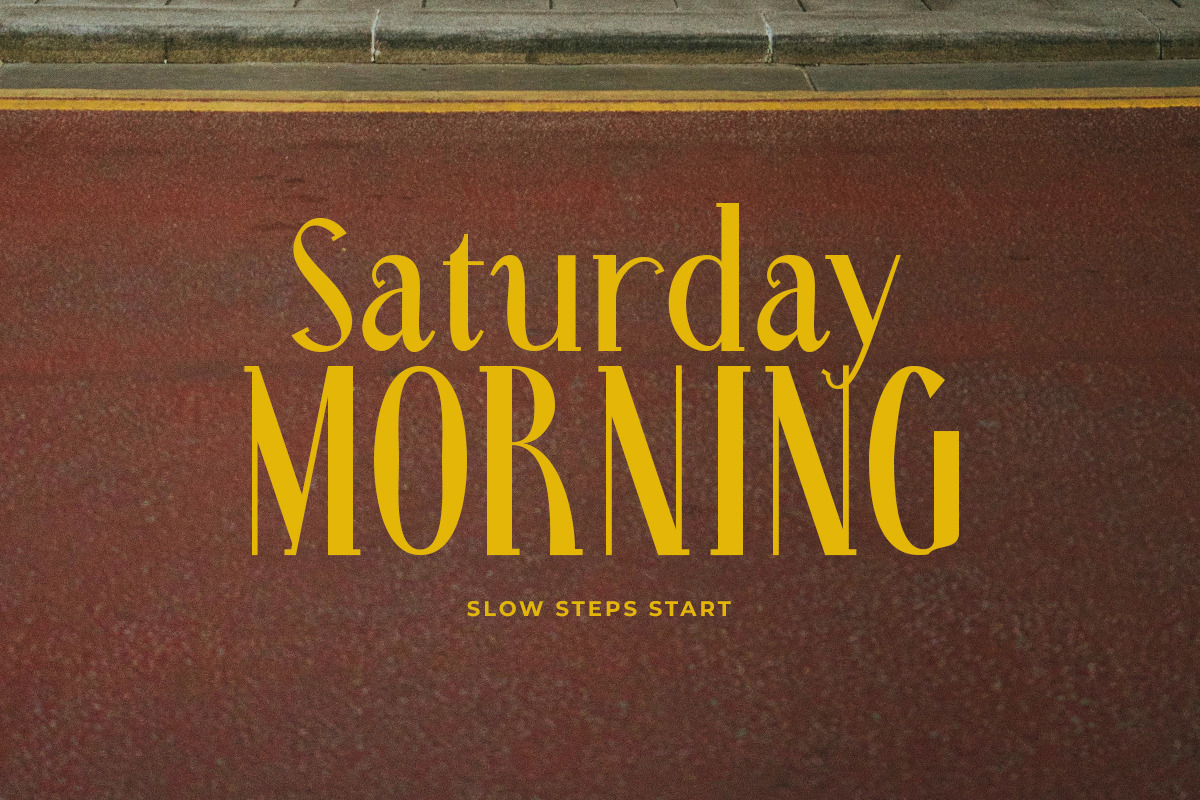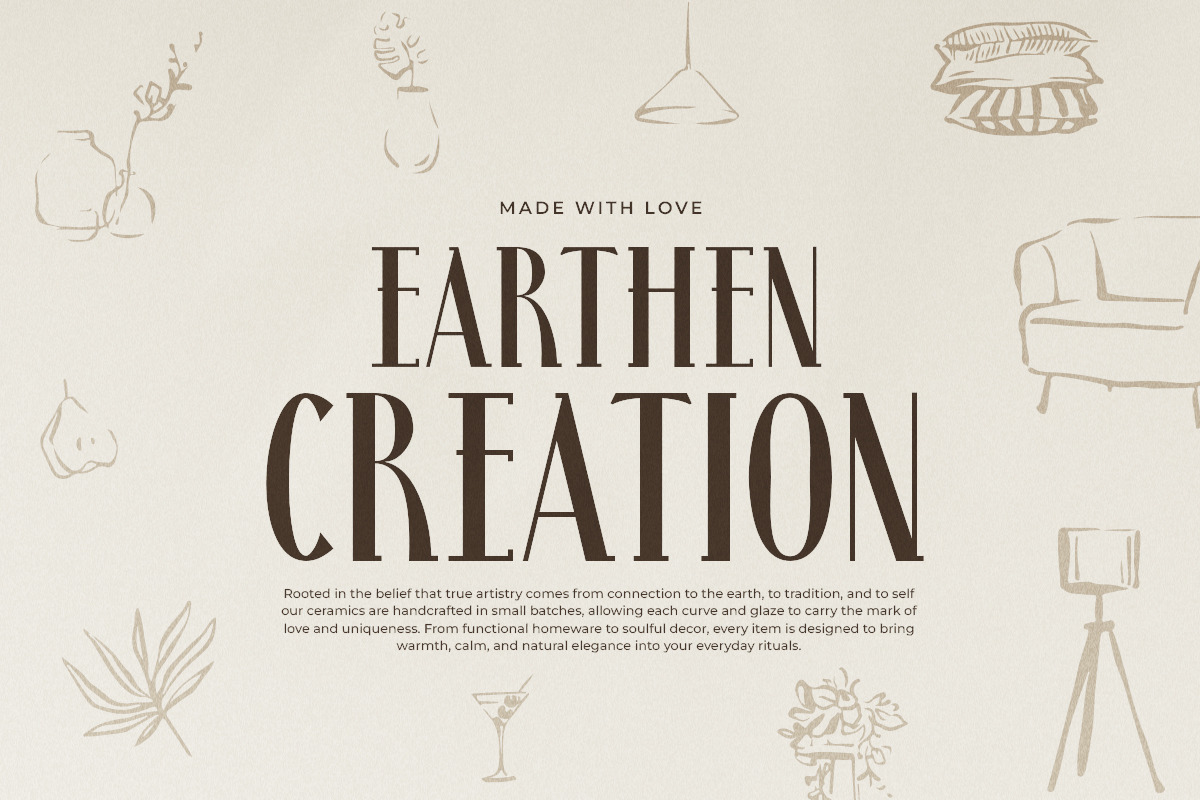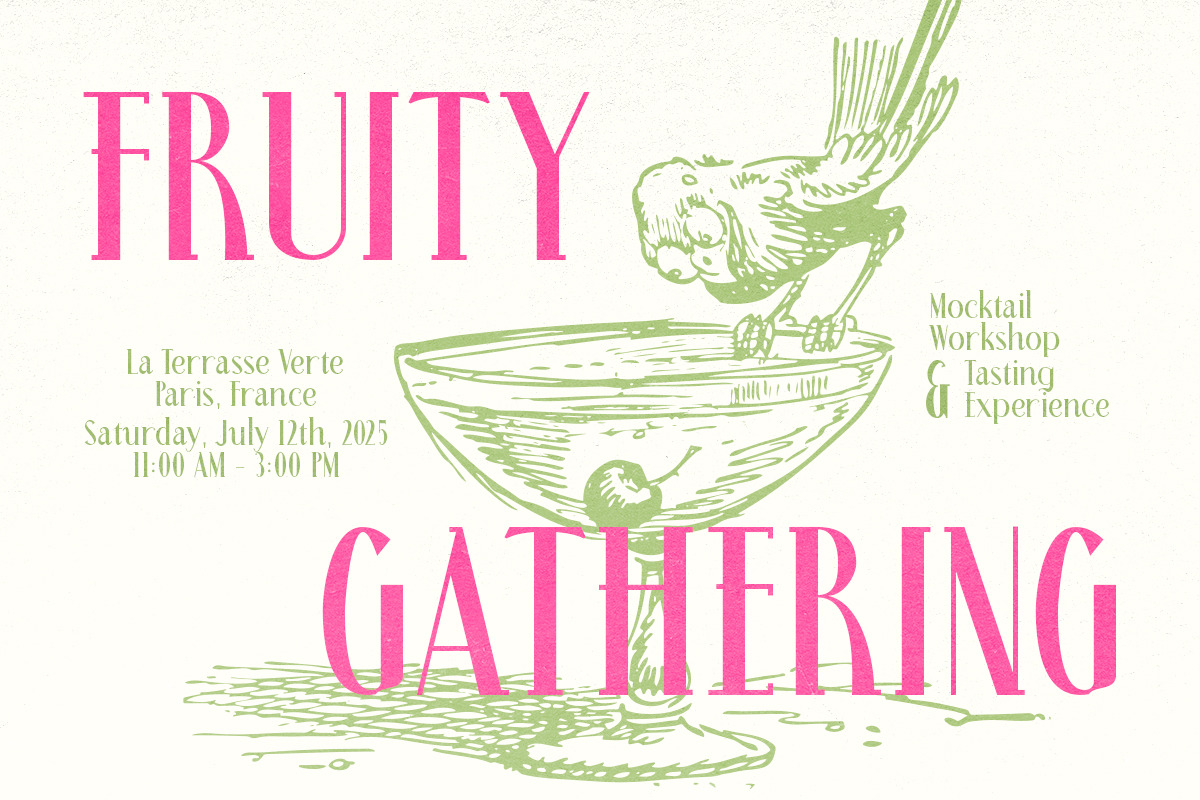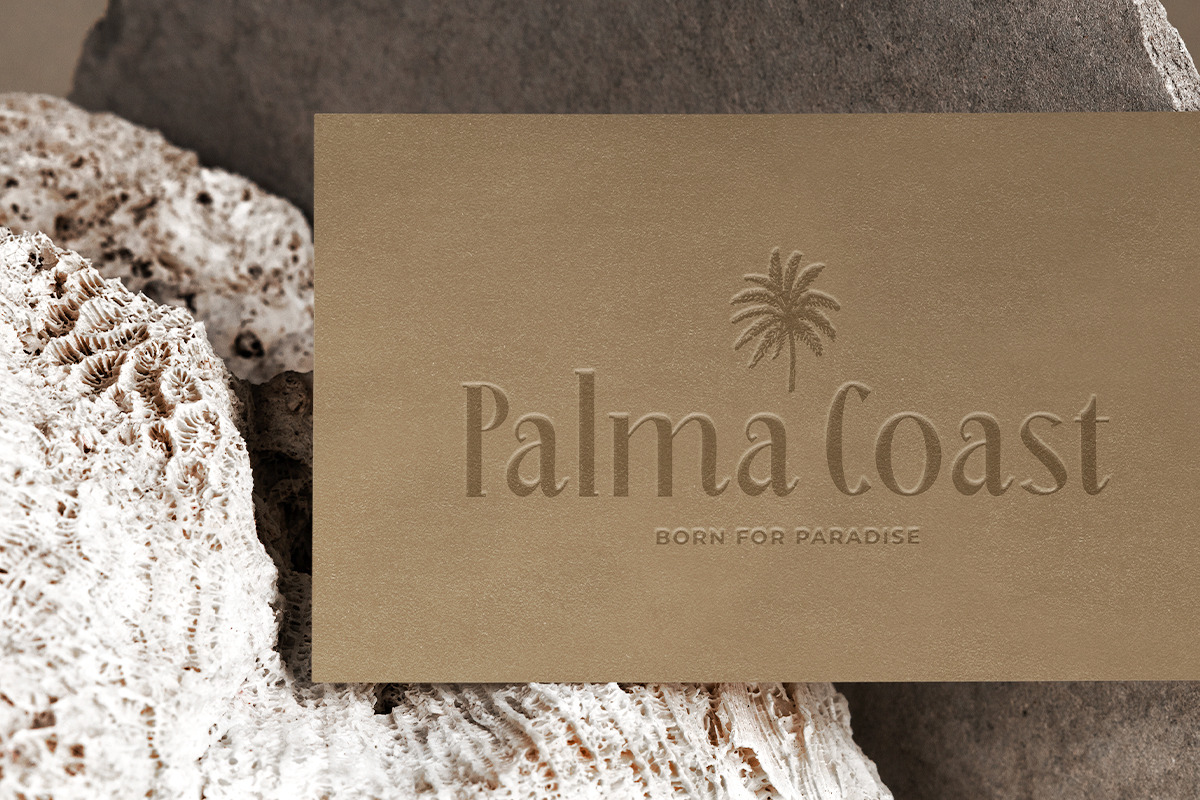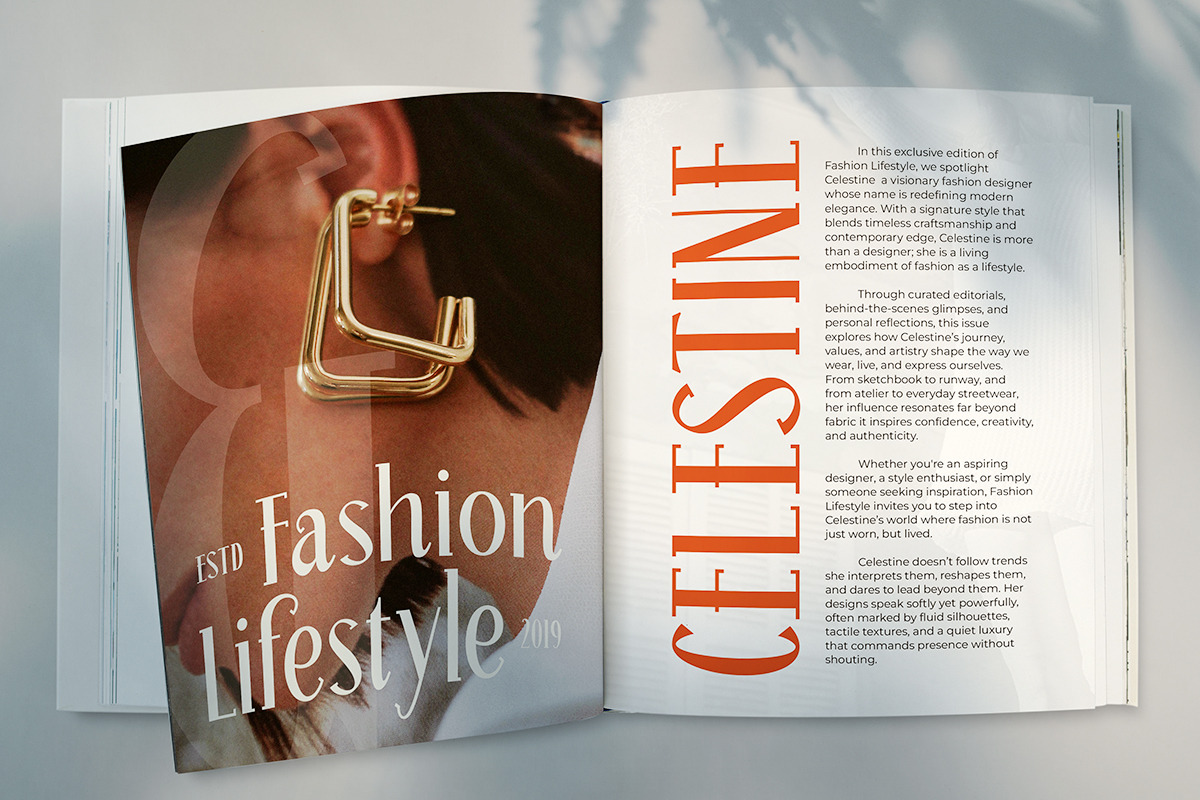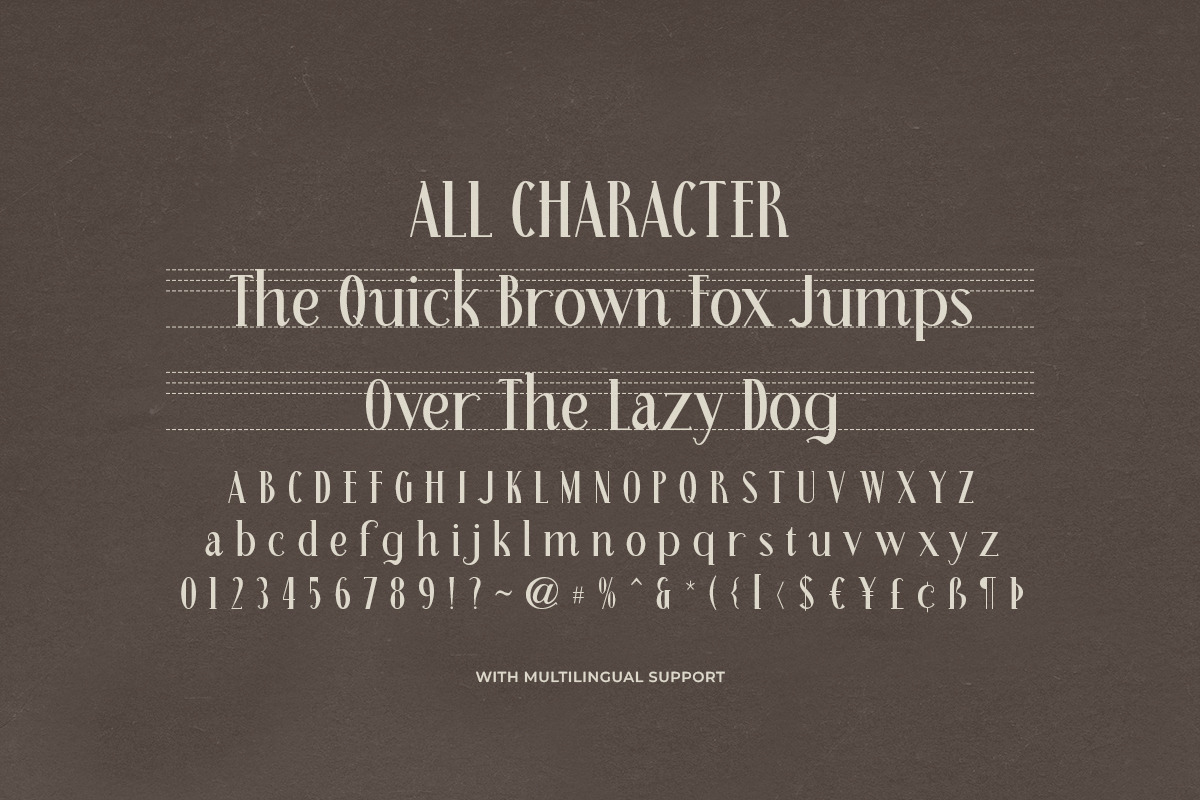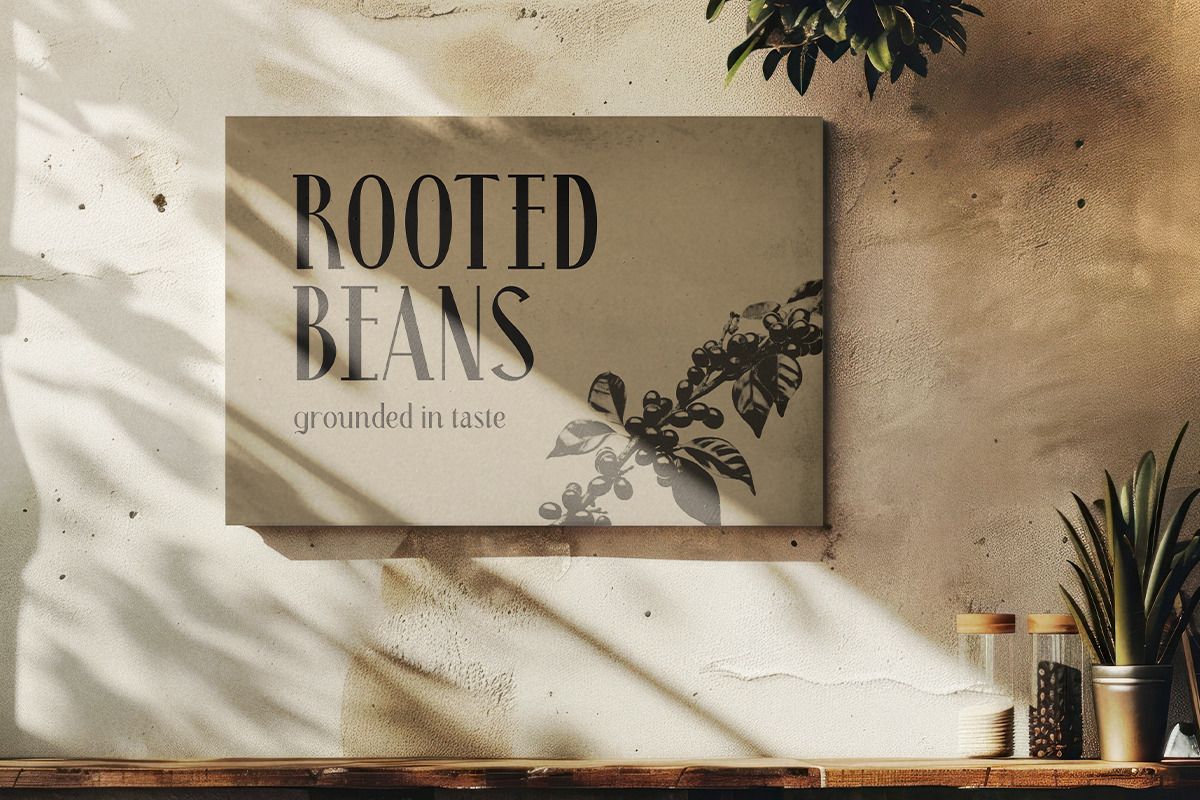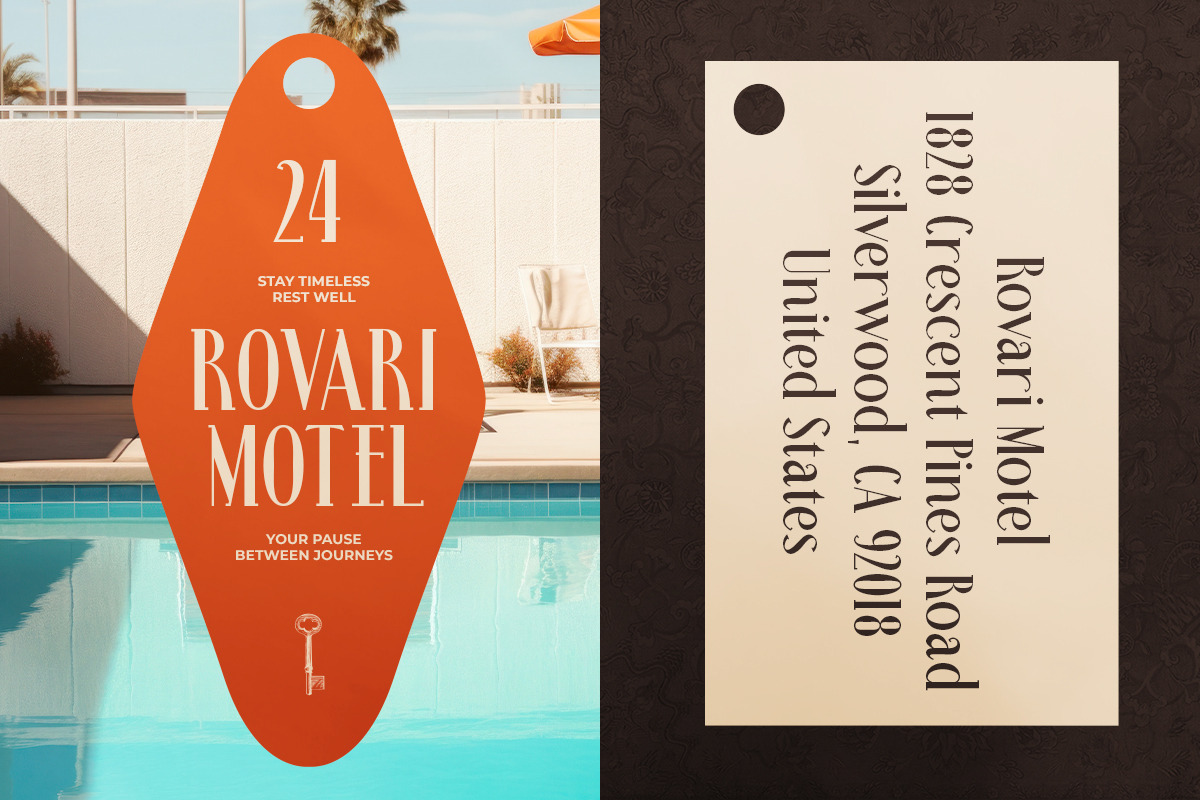
Magoet - Heritage Serif
Timeless serif typeface that beautifully captures the elegance and charm of vintage typography from the iconic 70s era. Perfectly crafted for luxury branding, editorial layouts, and standout headlines, this font exudes a refined sophistication that instantly elevates any design. Whether you’re creating a high-end fashion logo, a stylish magazine cover, or an eye catching display, Magoet delivers classic yet bold character with every letterform. Its versatile retro serif style makes it the ideal choice for designers seeking to blend heritage with modern elegance making your brand unforgettable.